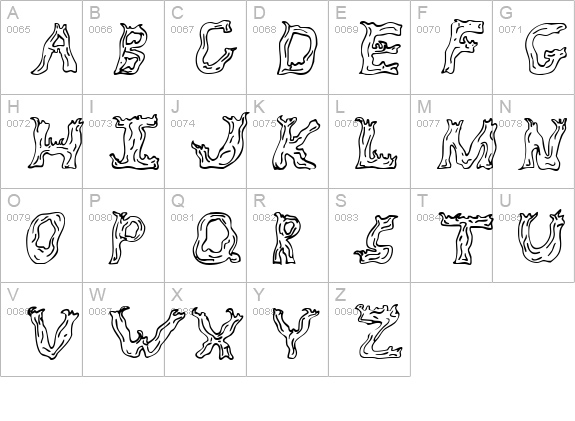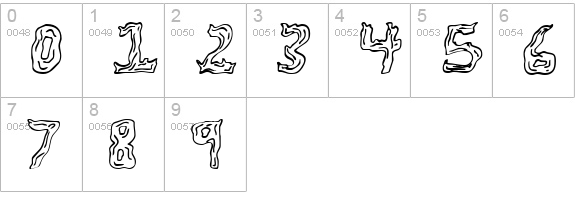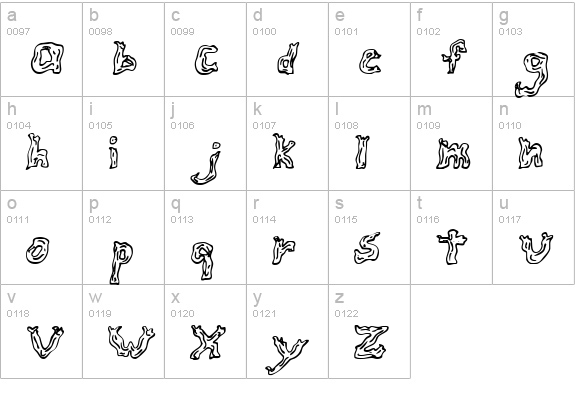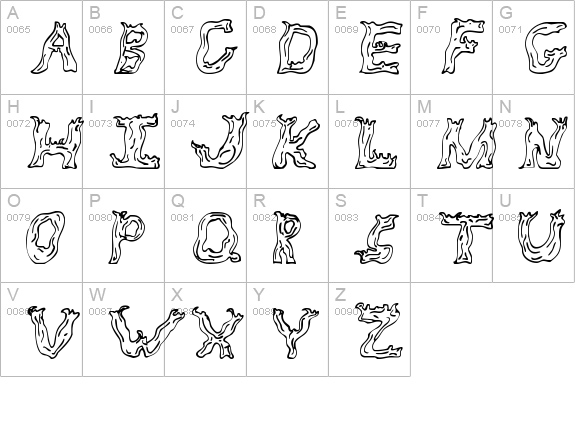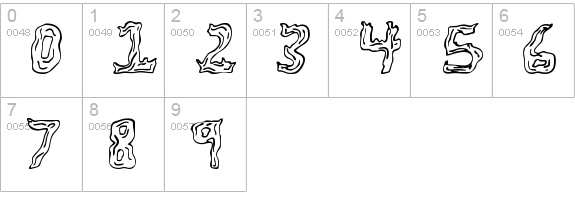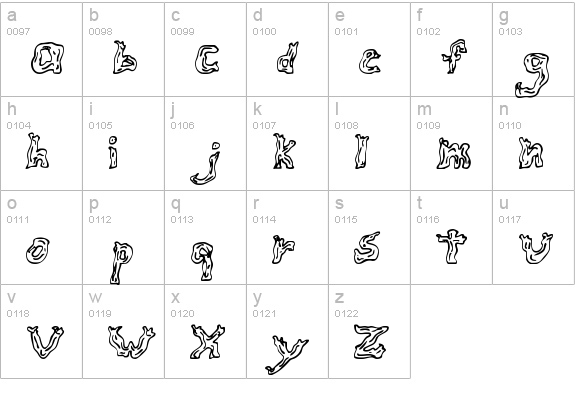
Fire Wood Regular is the standard, neutral variant in the Fire typeface family \xE2\x80\x94 well suited to general body text, paragraphs, and standard typographic work.
Fire Wood Regular font is a versatile and eye-catching typeface that exudes warmth and rustic charm. With its bold and sturdy design, this font is perfect for various design projects, from logos to posters to branding materials. The Fire Wood Regular font is inspired by the natural beauty of wood and fire, giving it a unique and organic appeal. What's even better is that Fire Wood Regular font is available for free download at FontsMarket.com. This means that you can easily add this stunning font to your collection without any cost. Download Fire Wood Regular font today and let your creativity ignite with its captivating and distinctive style.